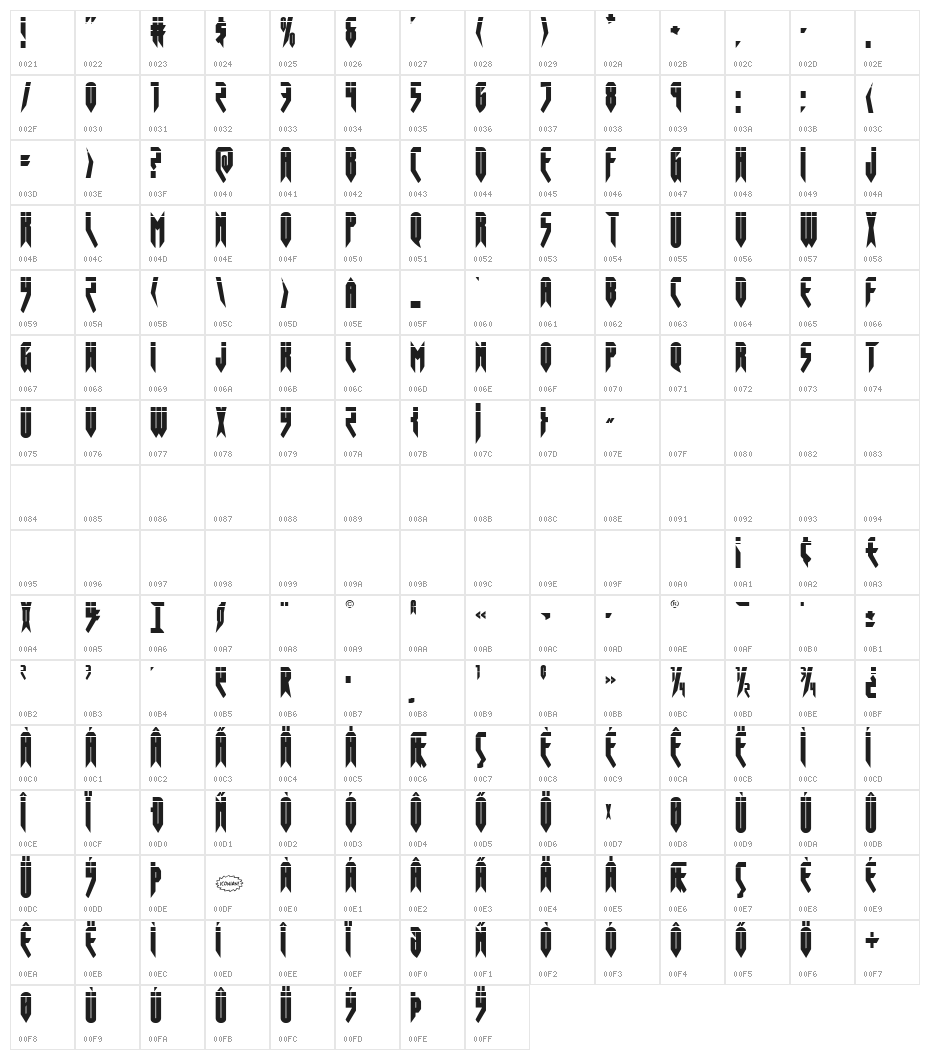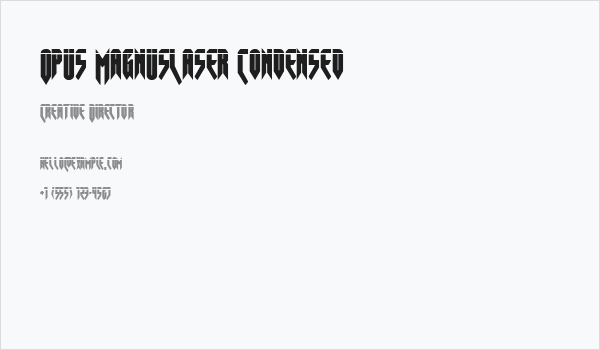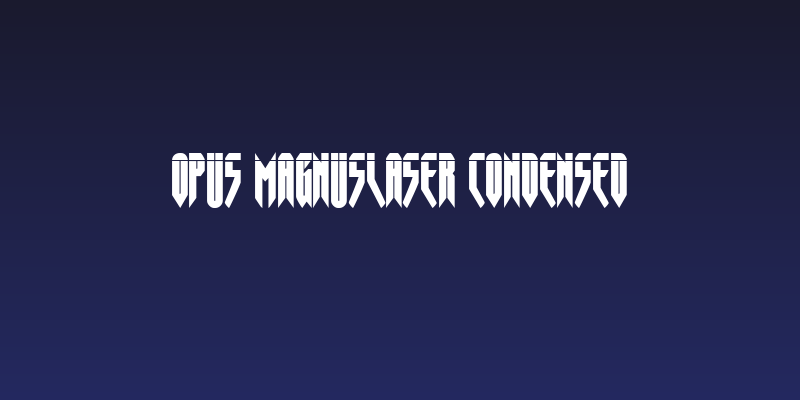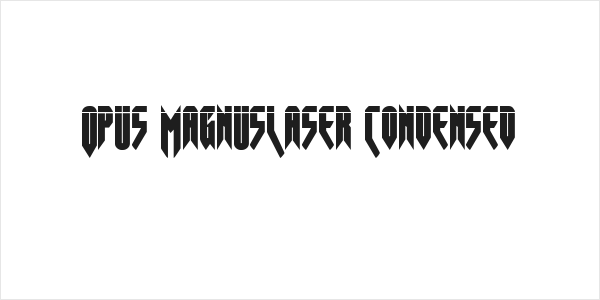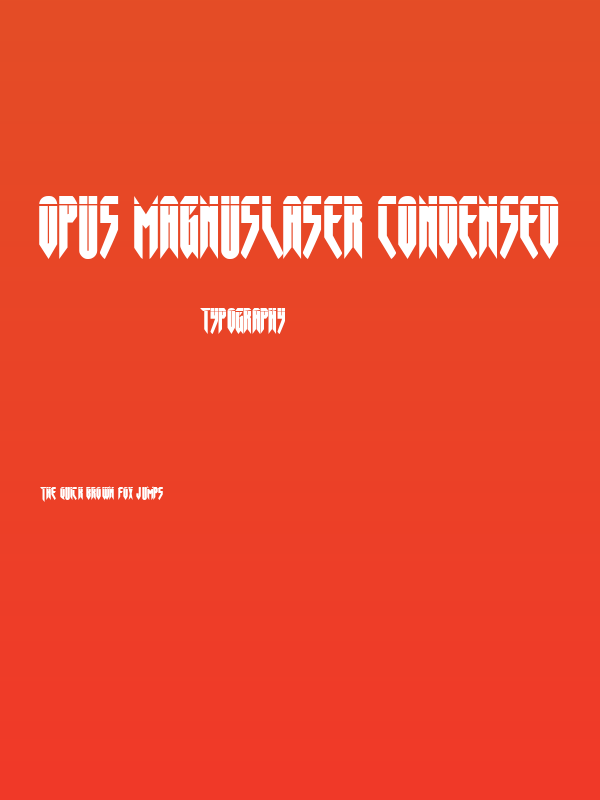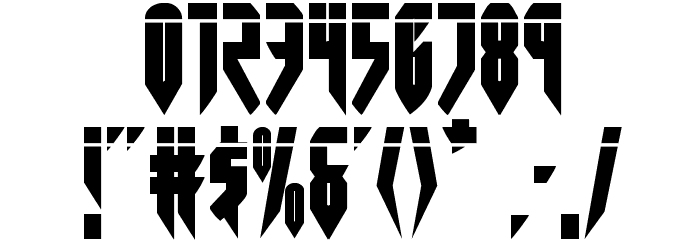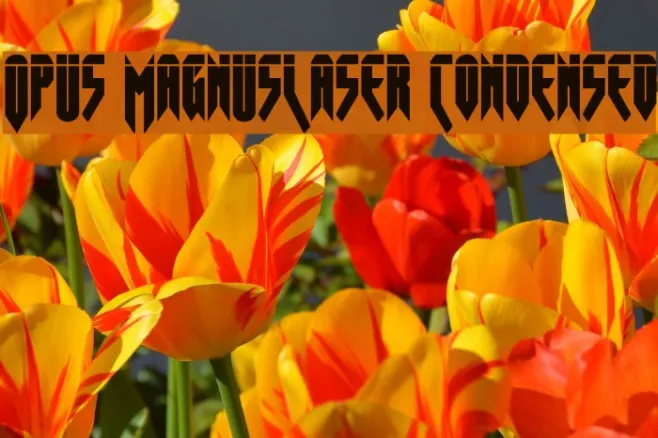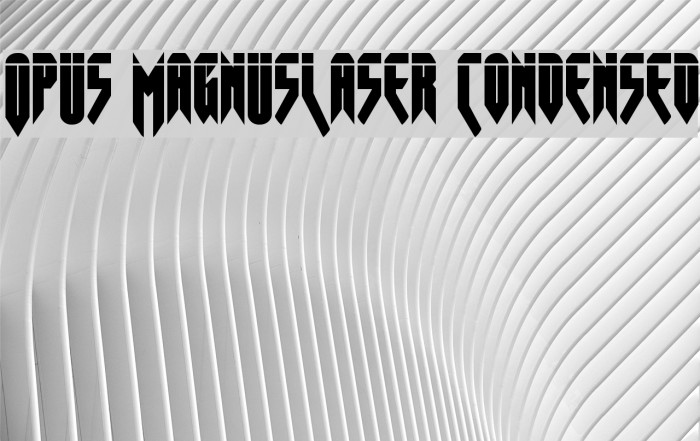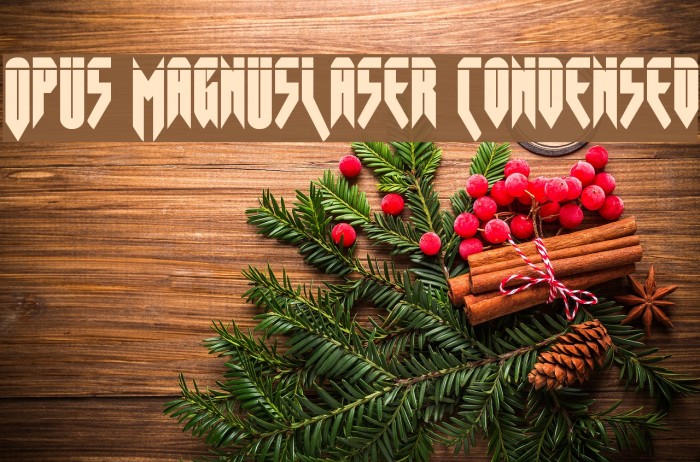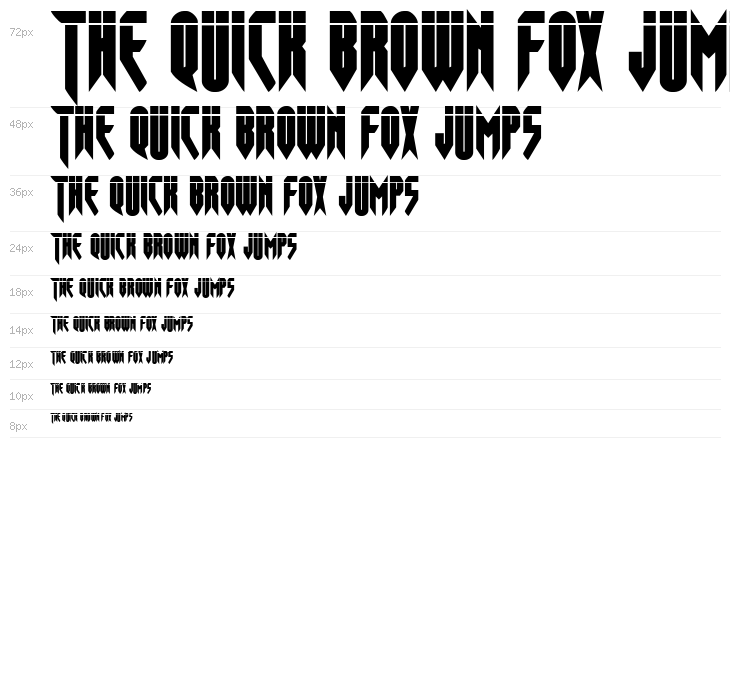
Opus MagnusLaser Condensed Font
Opus MagnusLaser Condensed Description
This font features a bold and striking design with sharp, angular edges and a futuristic aesthetic. The characters are highly stylized, with geometric shapes that create a sense of movement and energy. The uppercase and lowercase letters maintain a consistent height, contributing to a uniform appearance. The numbers and special characters follow the same design principles, ensuring a cohesive look across all elements. This font's condensed width allows for efficient use of space, making it suitable for impactful headlines and titles. The high contrast between thick and thin strokes adds to its dramatic effect, making it stand out in any design context.
| Proposed Projects | Ideal for sci-fi themed projects, video game titles, movie posters, and branding for tech companies. |